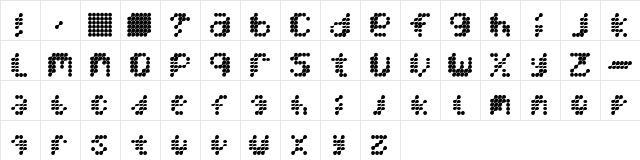
Mercury Blob Normal
| Copyright | Copyright 1997. Character design by Matt Perkins fontographing by Ben Hutchens. Design based on Dr No-B by Ian Anderson. Same knobby balls, different letter forms. Rip this and I'll rip you!  |
Design Context for Mercury Blob Typeface
Mercury Blob is a composed and adaptable typeface that performs quietly and consistently across a wide range of design contexts.